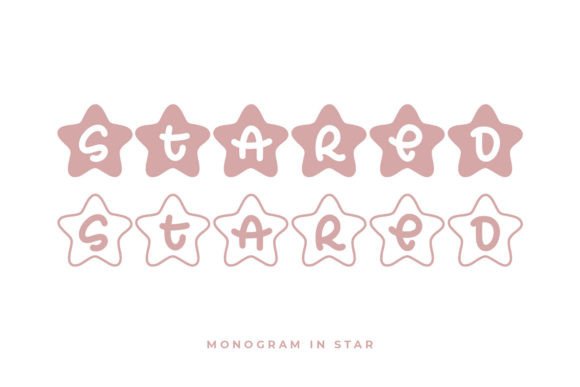
Step into a world of seaside charm and coastal allure with Stared Font, the epitome of beach typography. This enchanting font family, designed by the visionary Abodaniel, transports you to a realm of sun-kissed shores and salty breezes, where every letter dances with a playful spirit.
Stared Monogram is a captivating monogram font, its strokes adorned with a delicate touch of whimsy. It's the perfect companion for branding your beach-themed business, adding a dash of personality to your logos, t-shirt designs, tote bags, and social media posts. Let your brand shine with the carefree spirit of the seaside.
Picture this: your customers adorned in custom-made t-shirts featuring their names or initials, effortlessly stylish and uniquely theirs. Stared Monogram transforms ordinary garments into cherished keepsakes, each stitch imbued with a story. The endless possibilities for personalization make this font a must-have for designers seeking to create a lasting impact.
But Stared Font's magic extends beyond branding. Its playful charm lends itself beautifully to cards, banners, and social media graphics. Envision invitations adorned with Stared Monogram, inviting your guests to a seaside celebration, or eye-catching banners announcing your latest beach-themed promotion. This font has the power to transform your designs into captivating works of art.
At the heart of Stared Font lies a philosophy of inclusivity and boundless creativity. Whether you're a seasoned designer or a budding entrepreneur, this font welcomes you with open arms. Its user-friendly nature makes it accessible to all, empowering you to bring your creative visions to life. Unleash your imagination and let Stared Font guide you on an artistic journey.
Embrace the spirit of the beach with Stared Font, the font that captures the essence of coastal living. Its playful strokes and captivating charm are sure to leave an unforgettable impression. Let your designs bask in the sunshine and dance to the rhythm of the waves. Dive into the world of Stared Font and let your creativity soar.